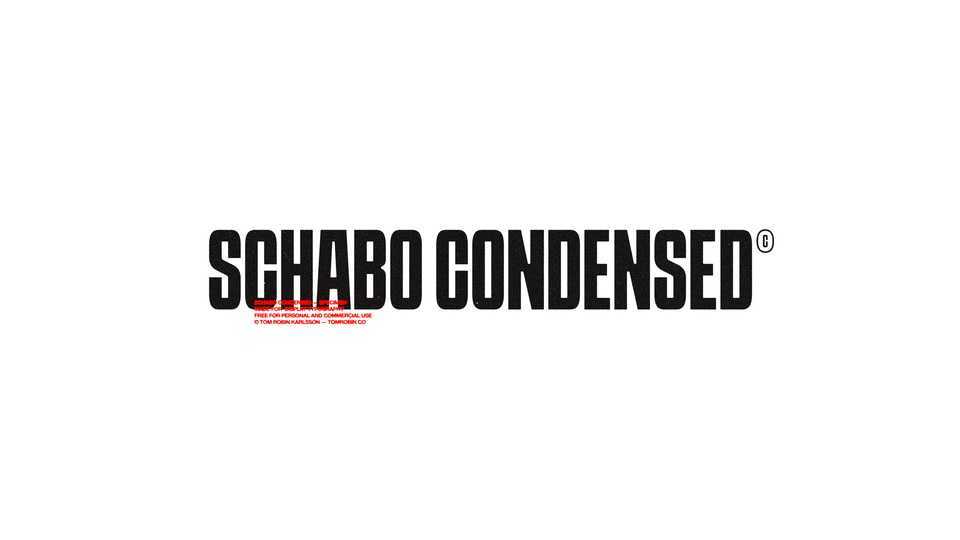
Download Schabo Condensed font, a modern grotesque typeface made for display typography. Its bold and solid appearance will provide instant visual impact to any design.
Designer: Tom Robin Karlsson